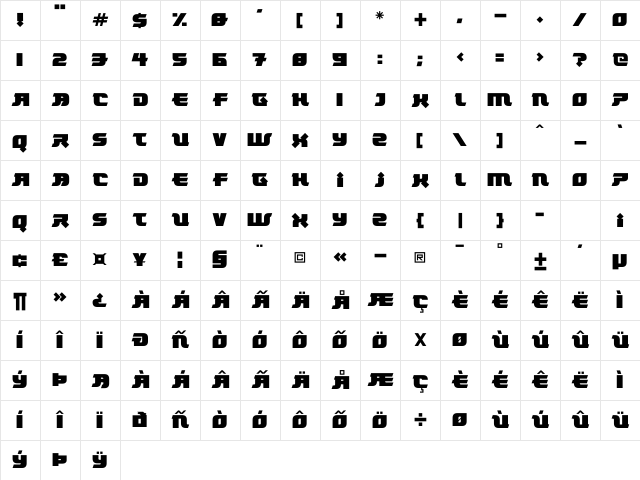
Tokyo Knights Regular Free Font
Tokyo Knights Regular
Design Context for Tokyo Knights
Tokyo Knights is a composed and adaptable typeface that performs quietly and consistently across a wide range of design contexts.